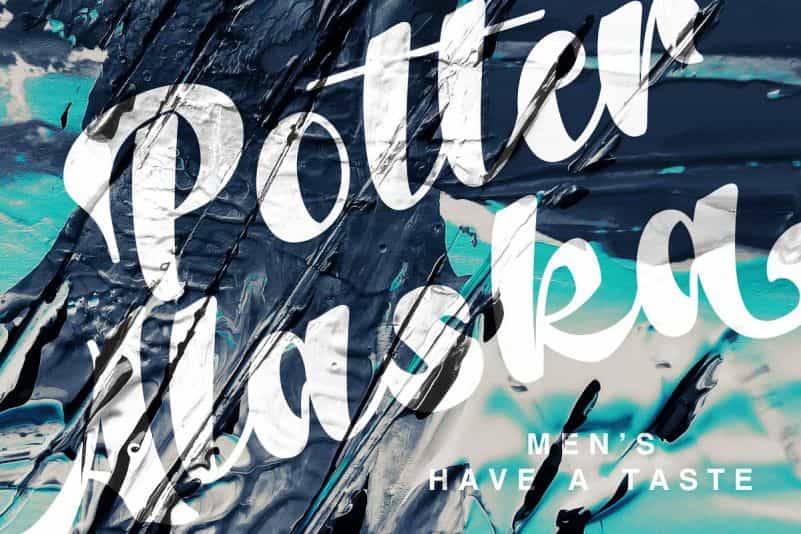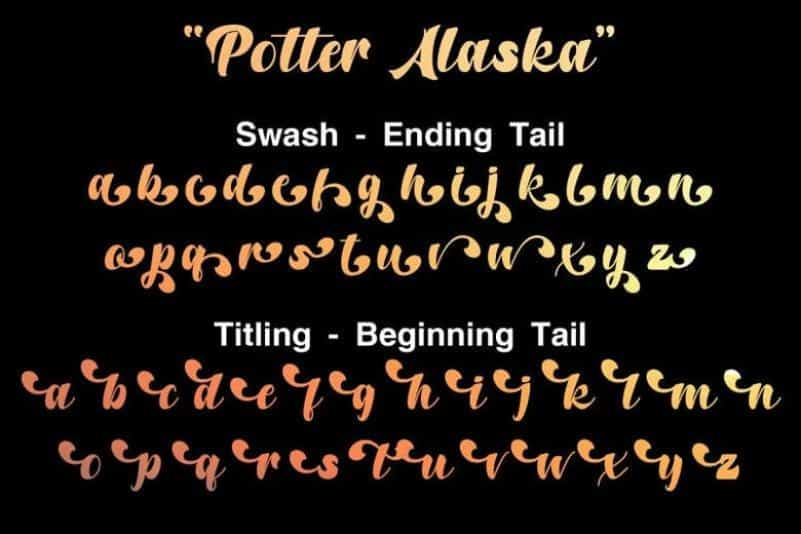
Presenting Potter Alaska Font! It’s designed and shared by Aldedesign. POTTER ALASKA – STRONG BOLD SCRIPT FONT – is Nice Bold Script Font – a stylish and quirky new bold script. This font has been developed to look as close to a readable bold script as possible having plenty of ligatures, titling and swash forms included.